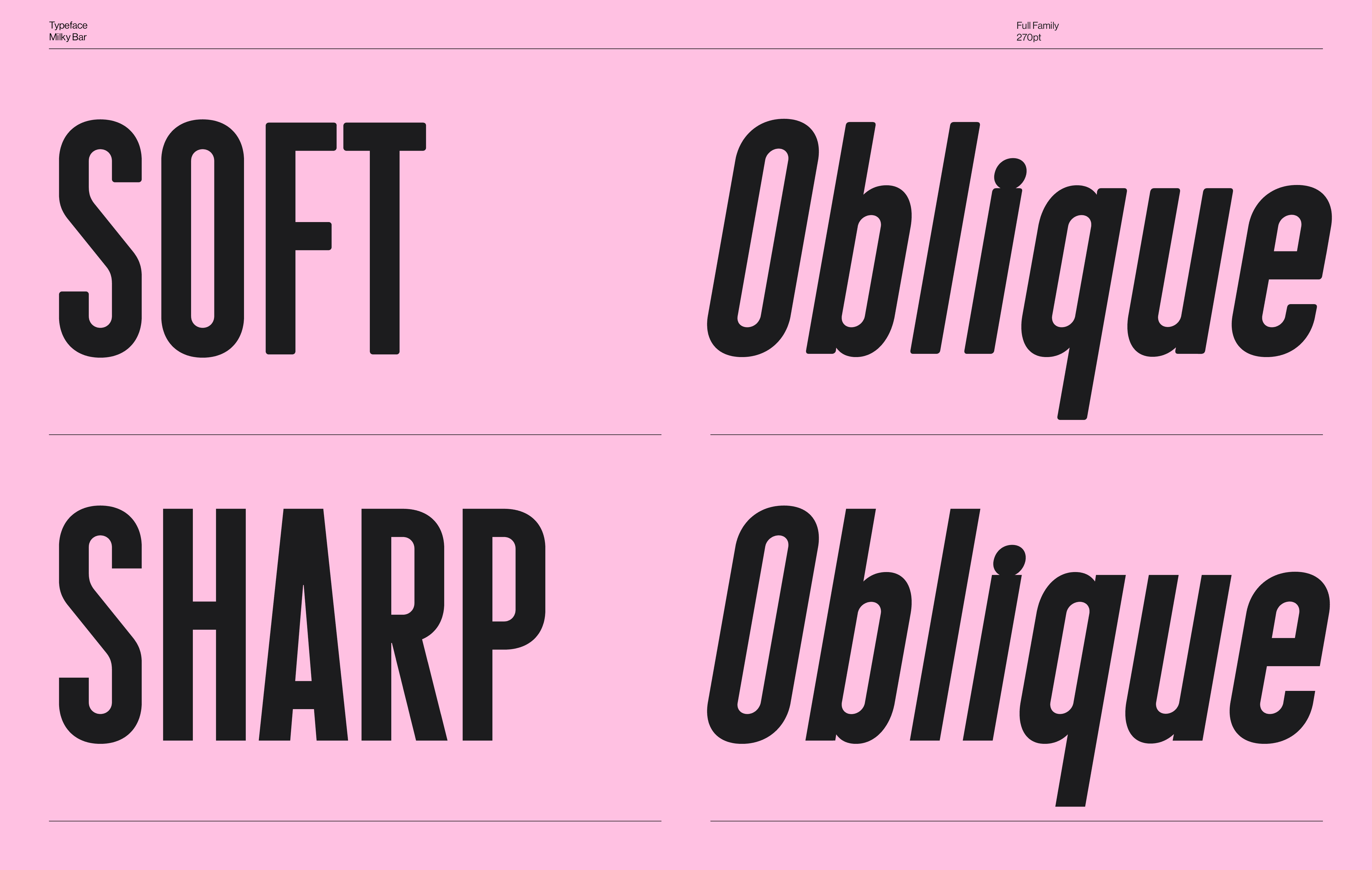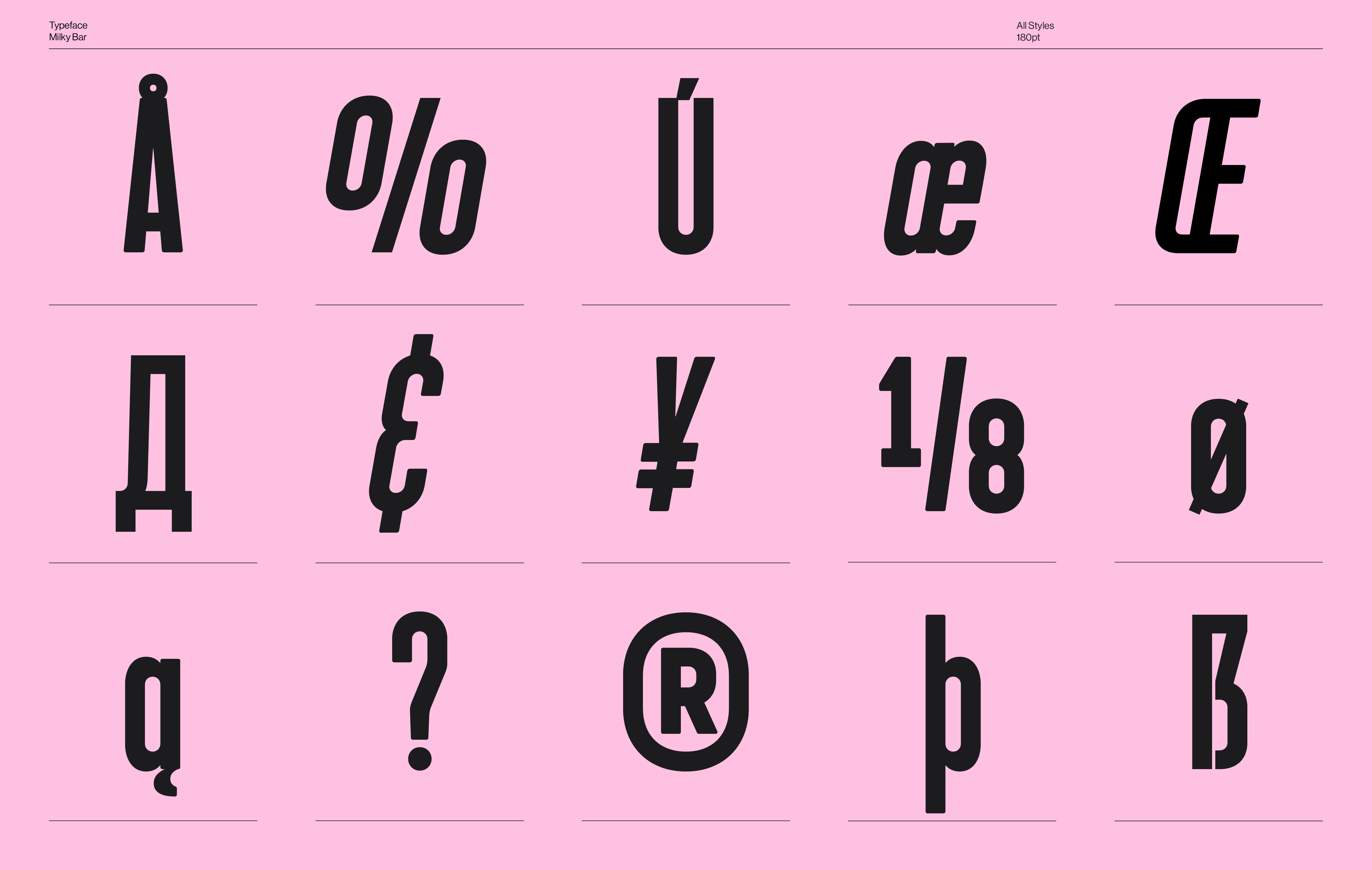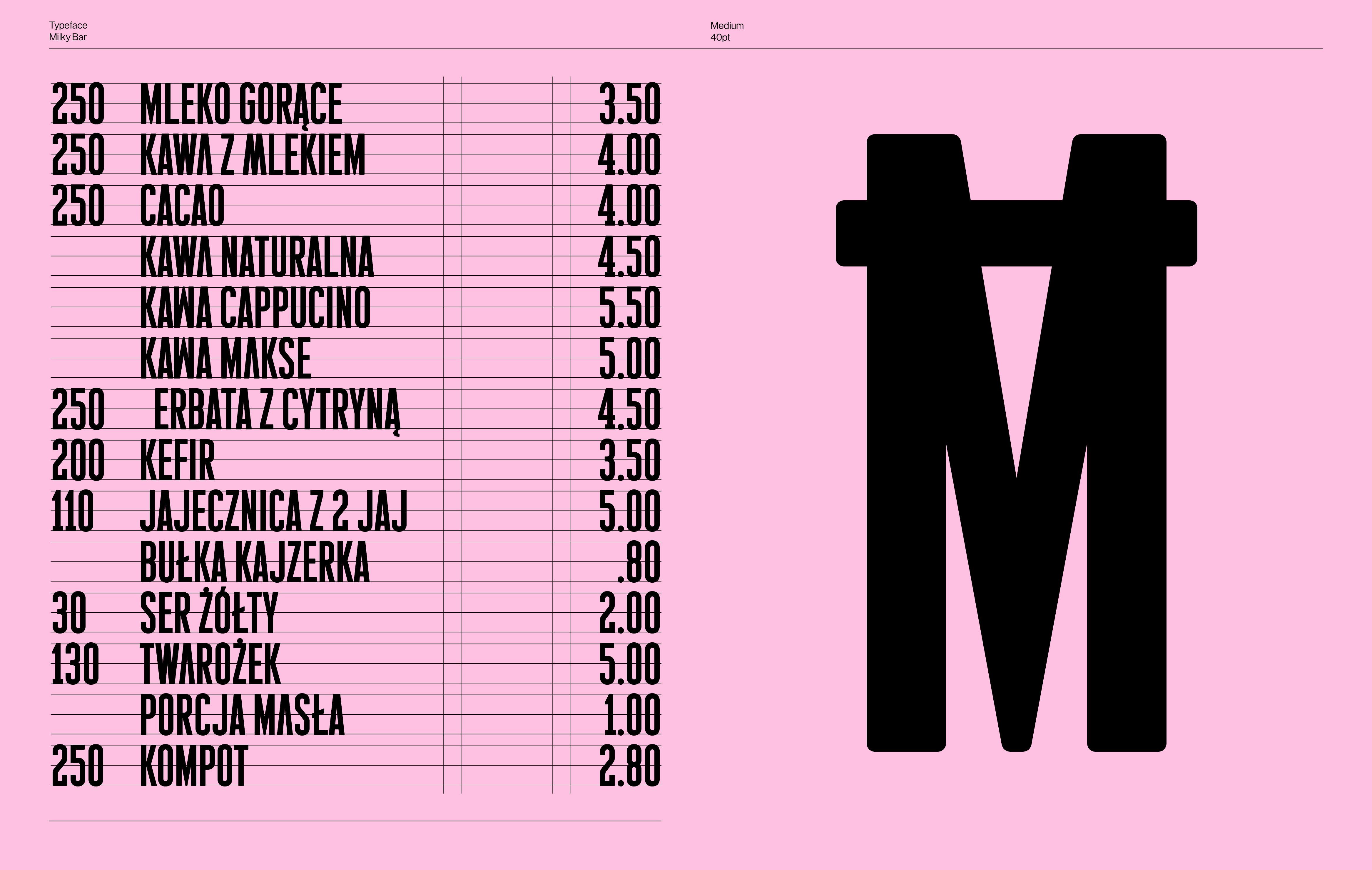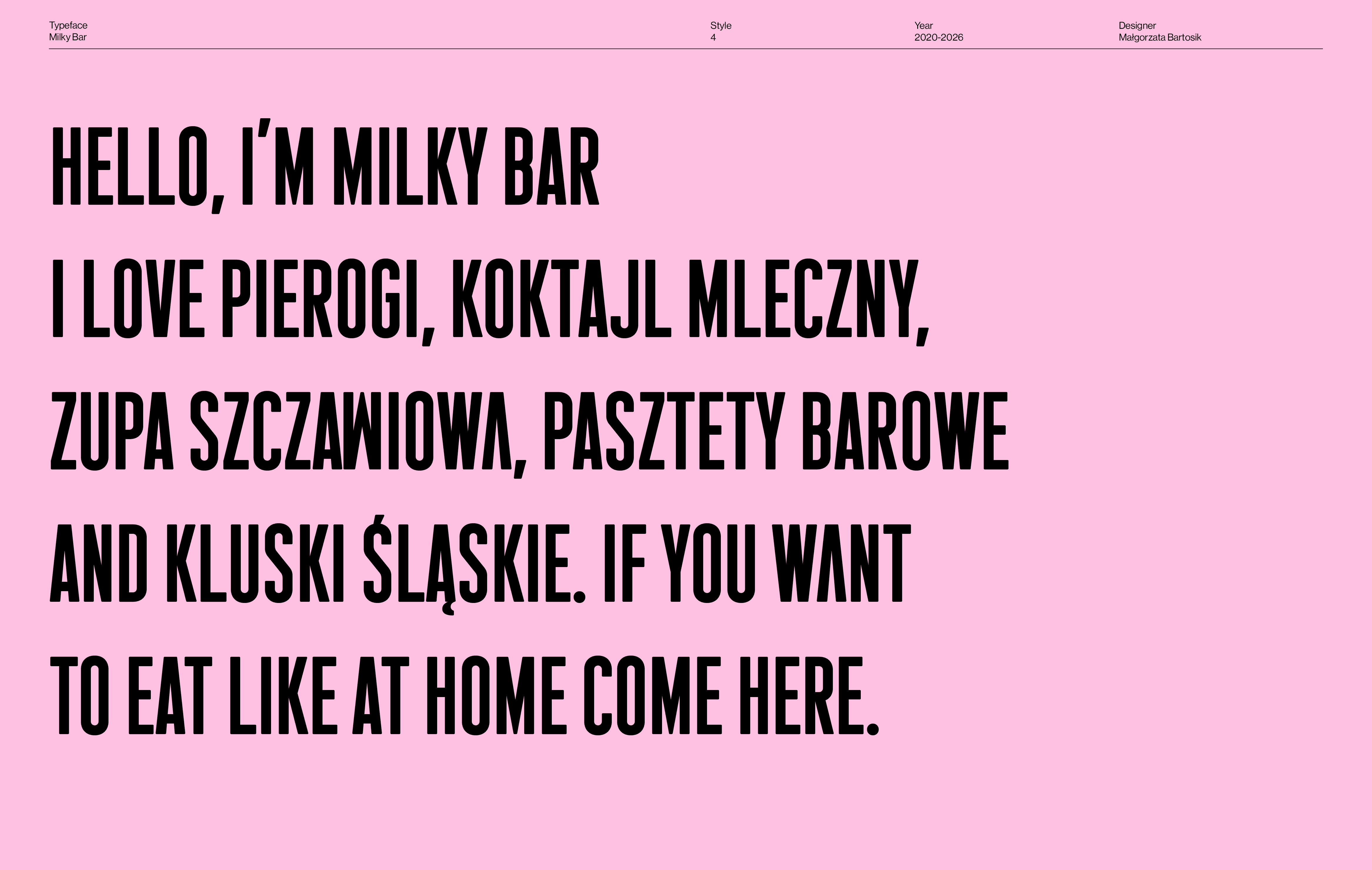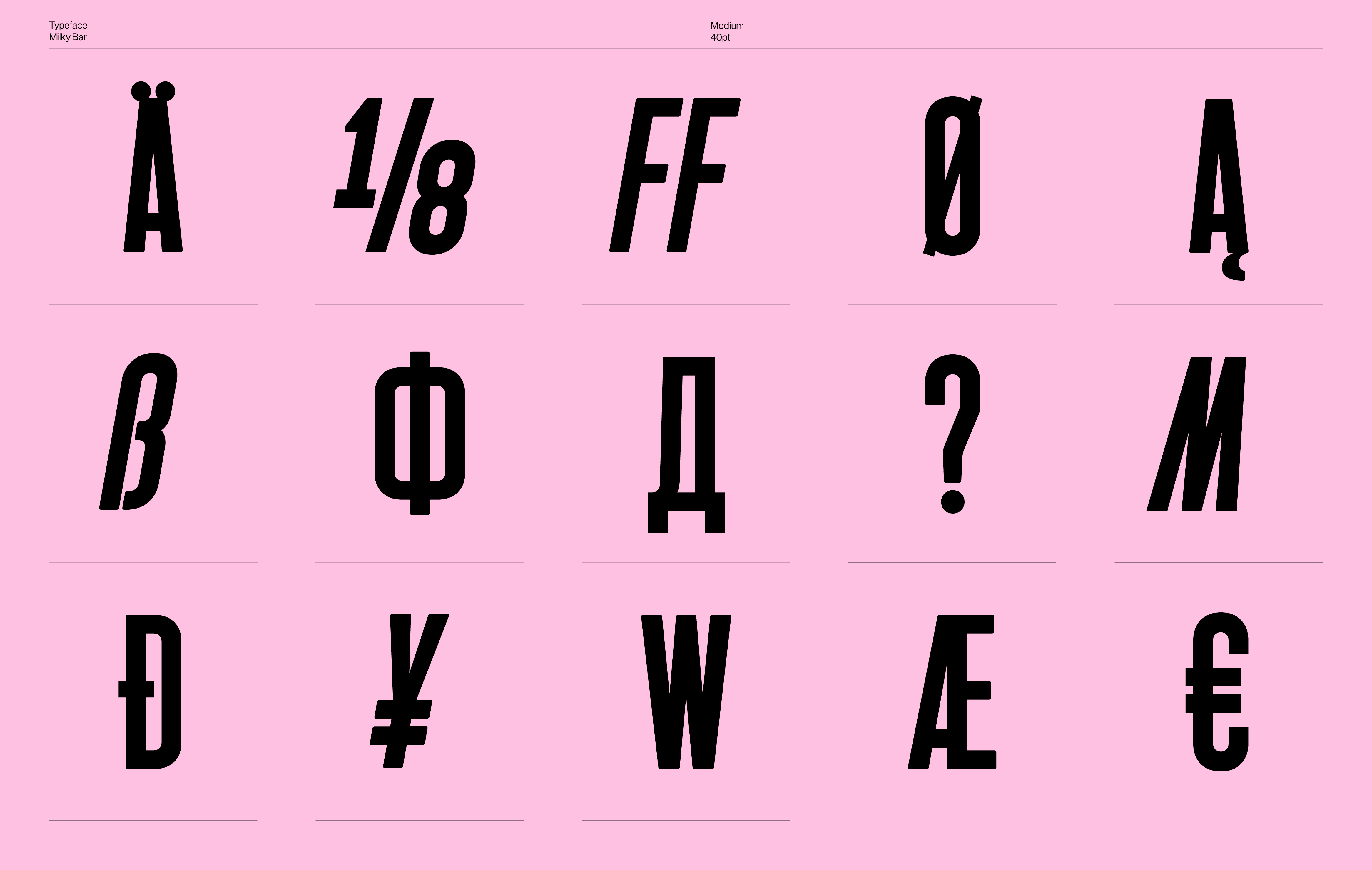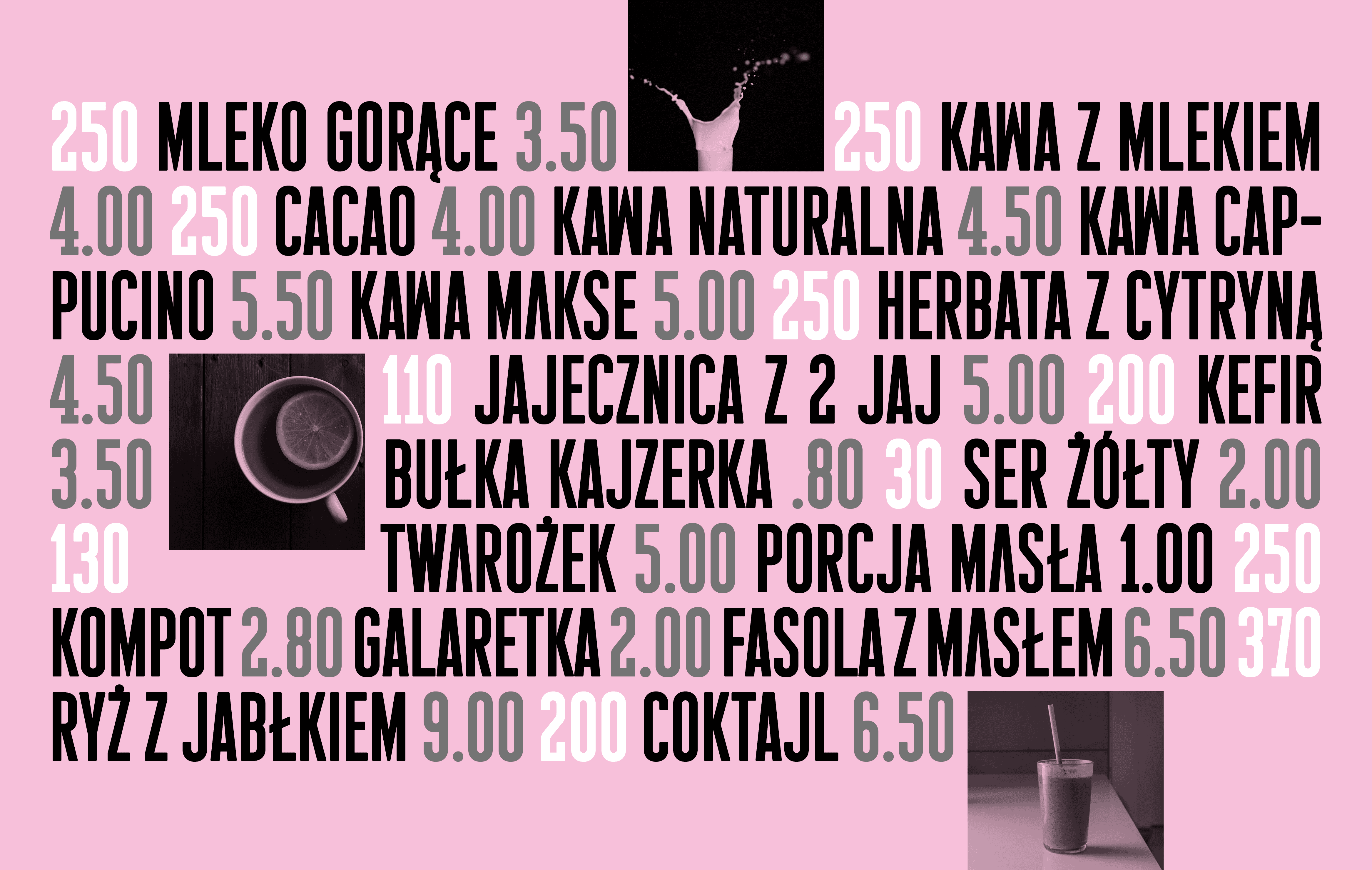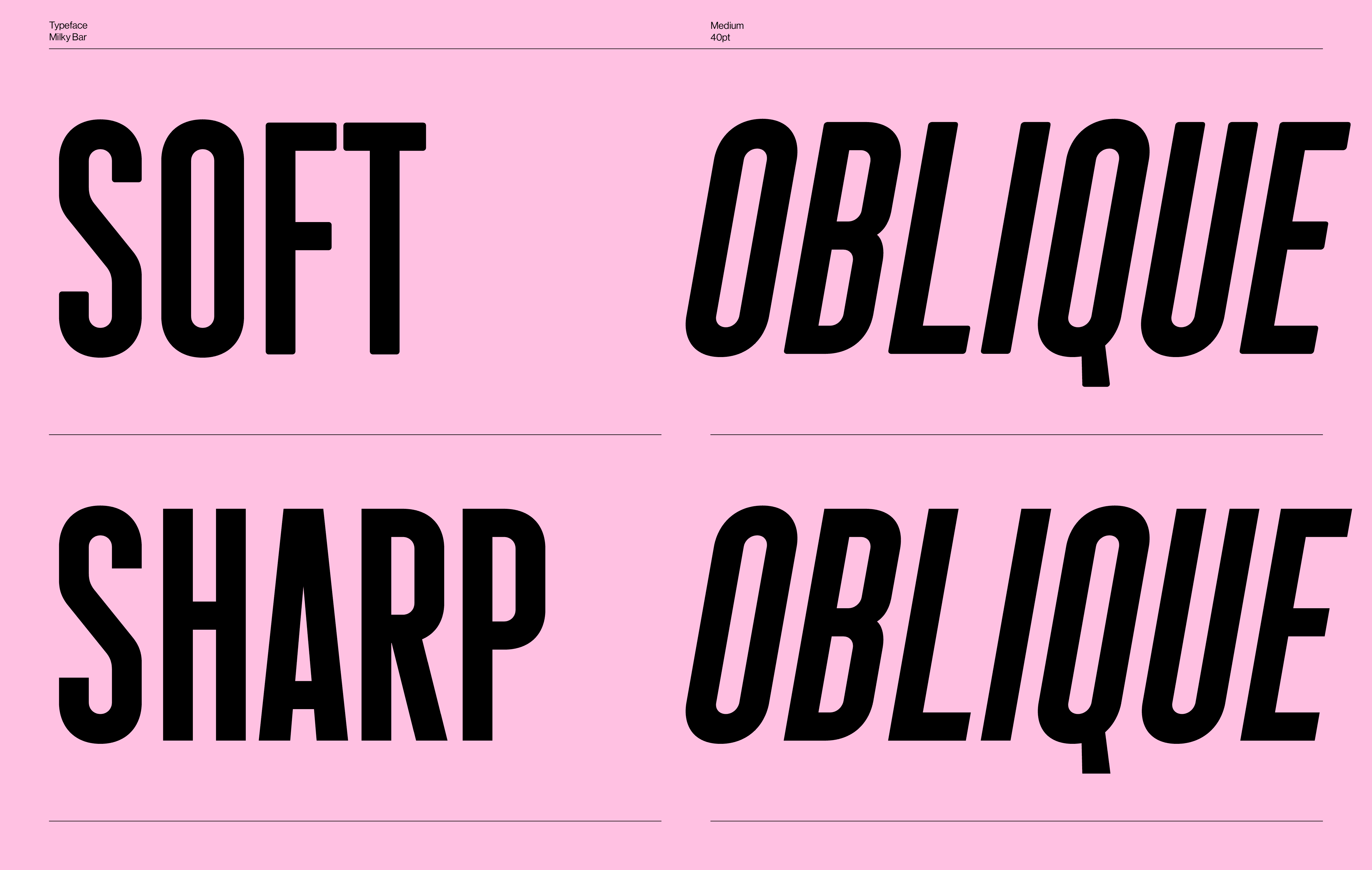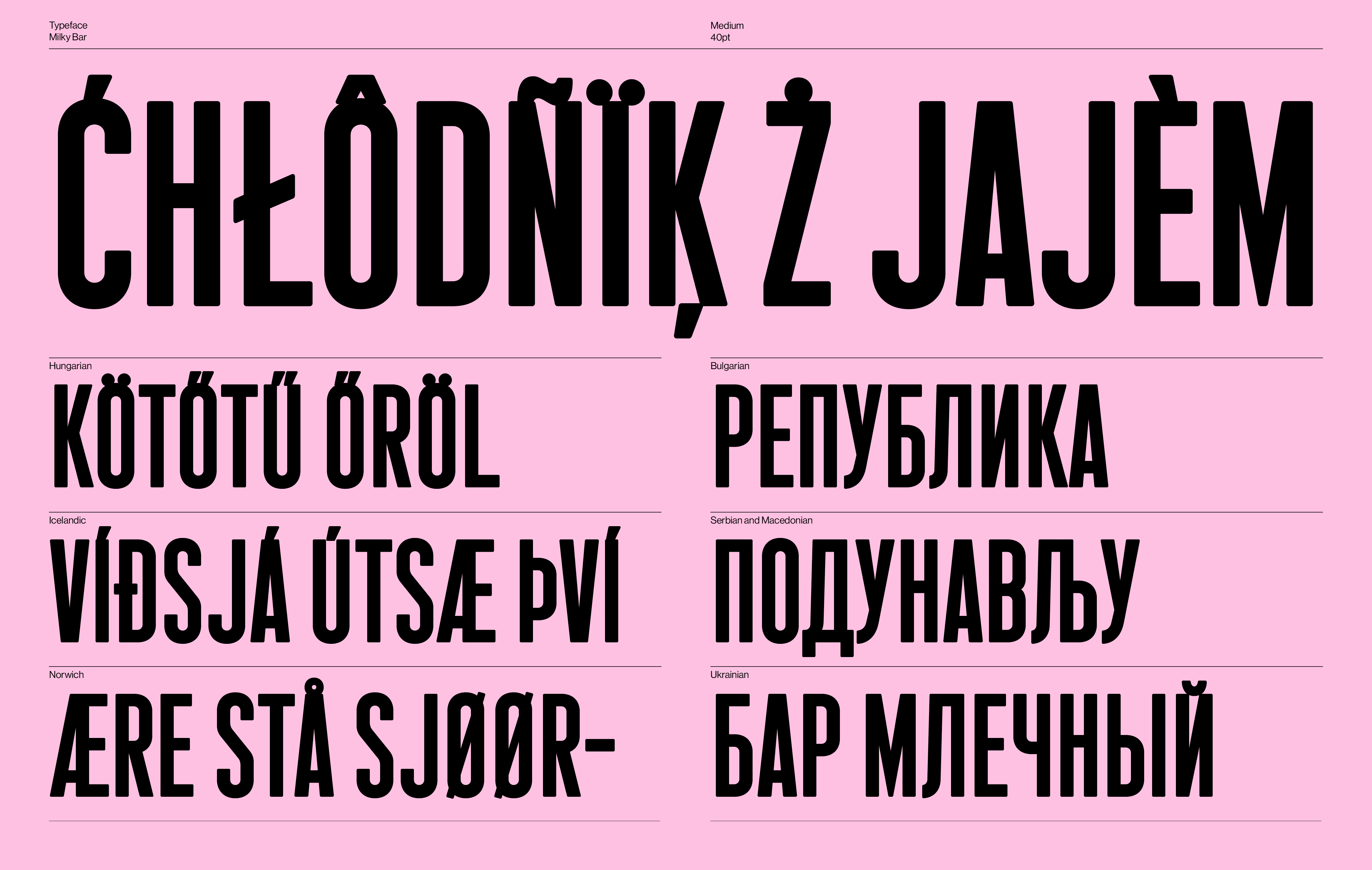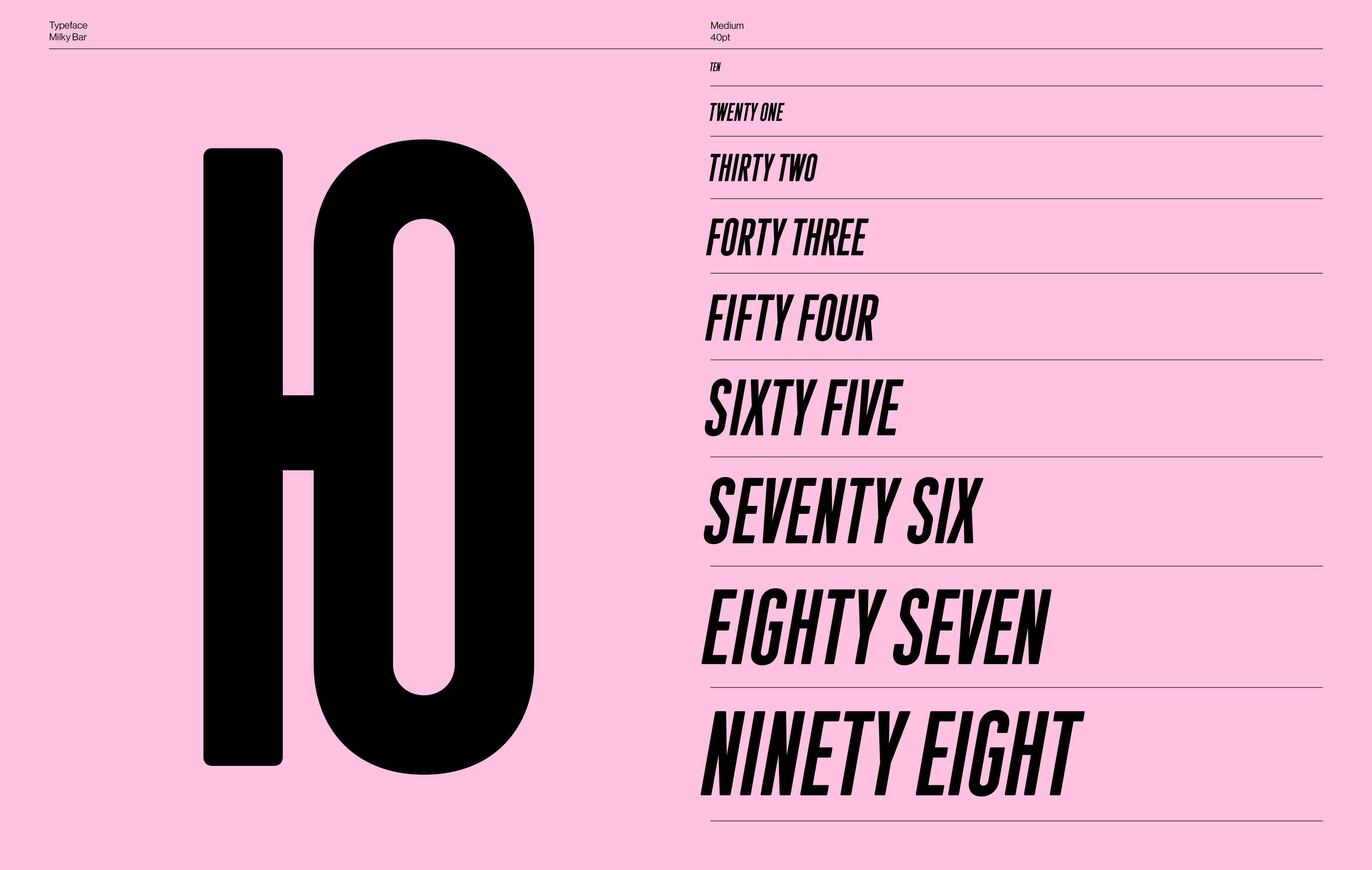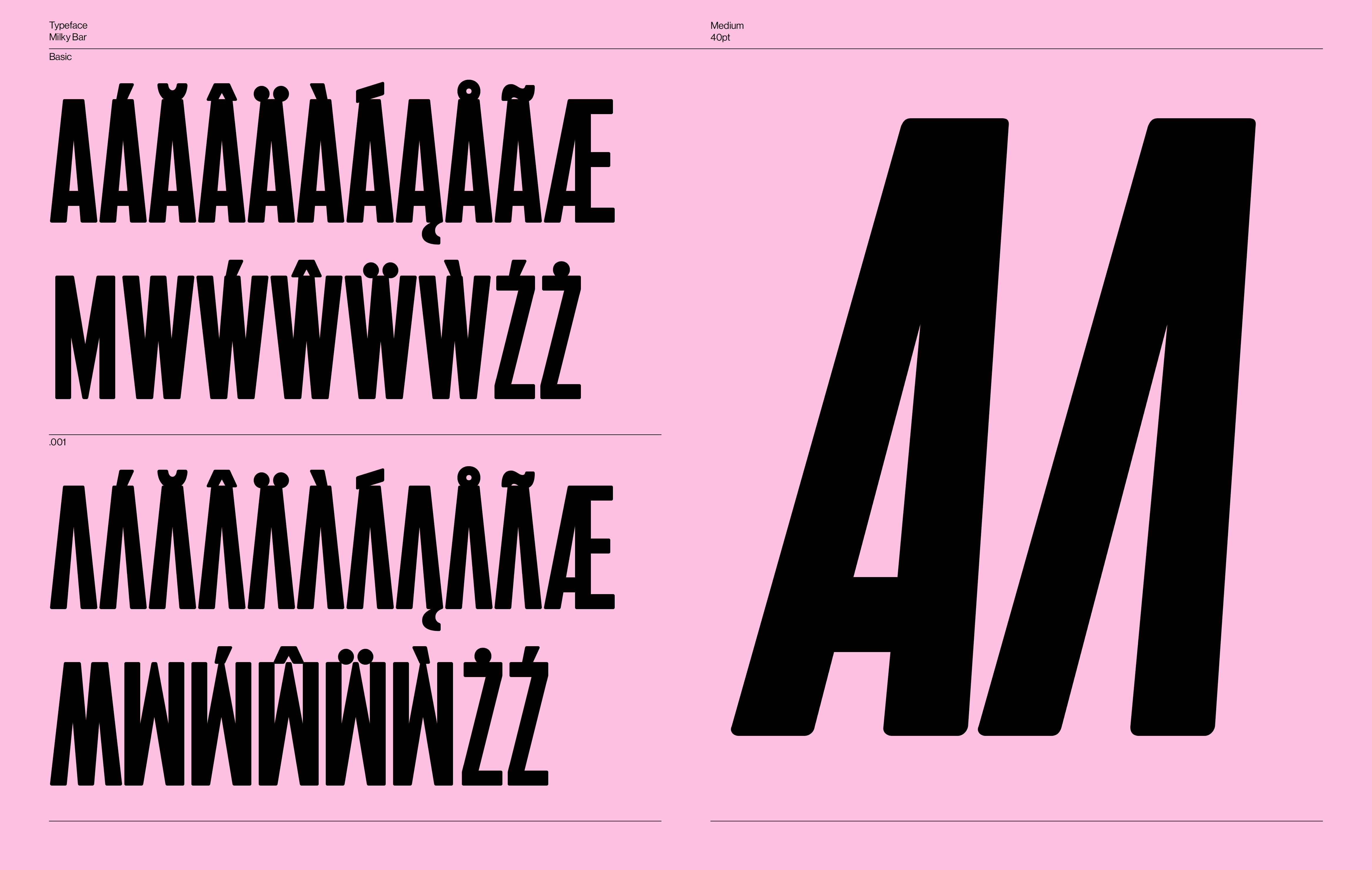
Milky Bar
Milky Bar is a typeface inspired by menu boards from Polish milk bars — those PRL-era canteens where letters were stuck to the board by hand, and when a specific character was missing, a similar one would do: Ź instead of Ż, M rotated 180 degrees instead of W, or an upside-down V instead of A. This happy accident became a defining feature of the typeface — Milky Bar includes contextual alternates for A, M, W, Ź and Ż that capture the spirit of the original boards. Letters and diacritics form a single unit, just like in the original. Available in four styles — Soft with rounded terminals and Sharp without, each with an Oblique variant — it's a narrow, sans-serif that blends retro with modern. Built for display. Includes Latin with European diacritics and Cyrillic.
Styles: 4, Glyphs: 583, Design date: 2020–2026
OpenType features: aalt, ccmp, locl, subs, sinf, sups, numr, dnom, frac, calt